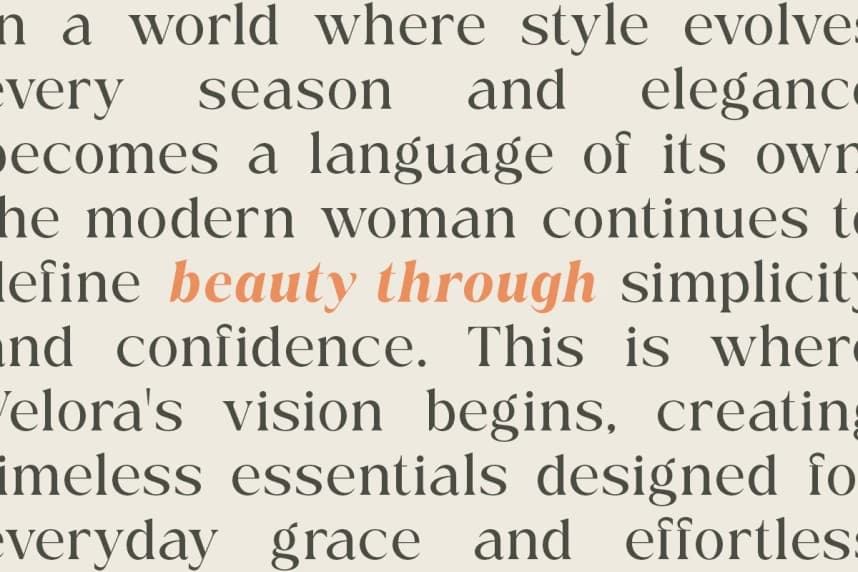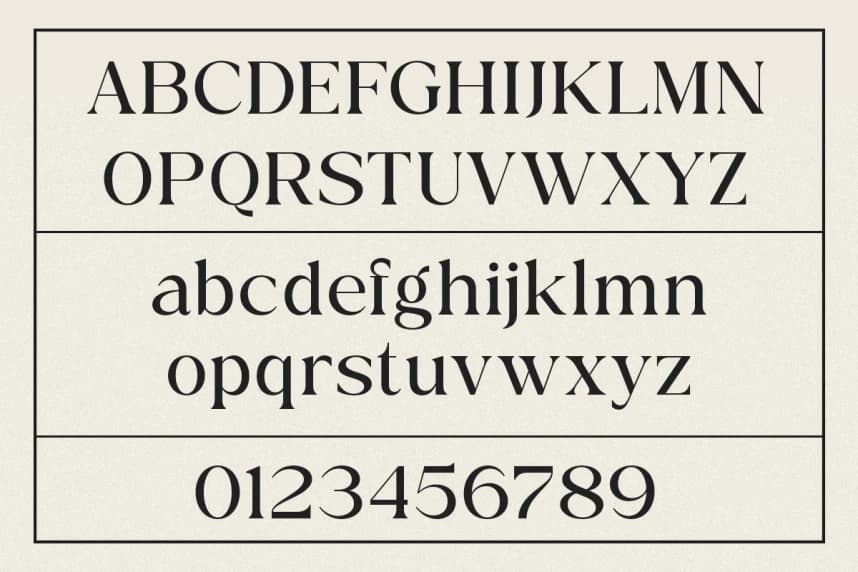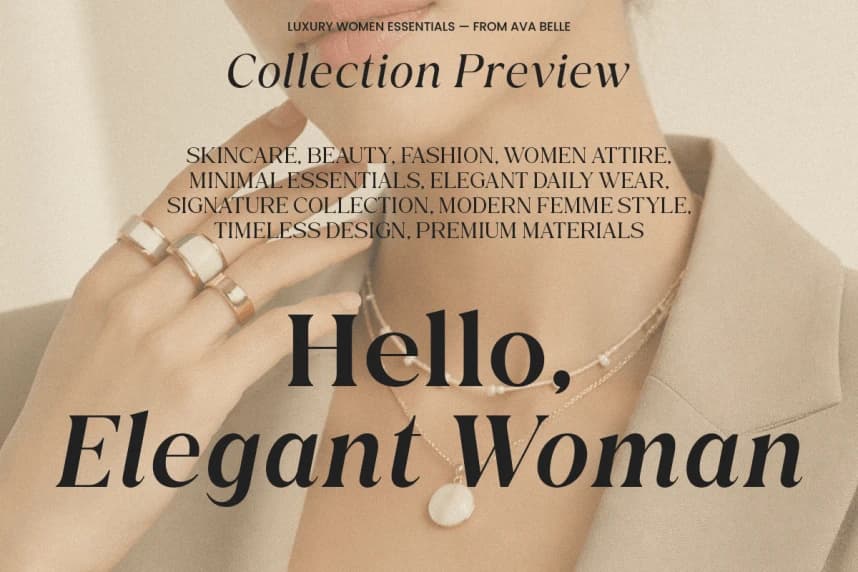
Ethereal Glamour Font
Ethereal Glamour Font is a refined serif typeface that embodies softness, elegance, and timeless beauty. Inspired by high-end fashion editorials and graceful aesthetics, this font combines delicate curves with strong serif structures to create a sophisticated visual harmony.